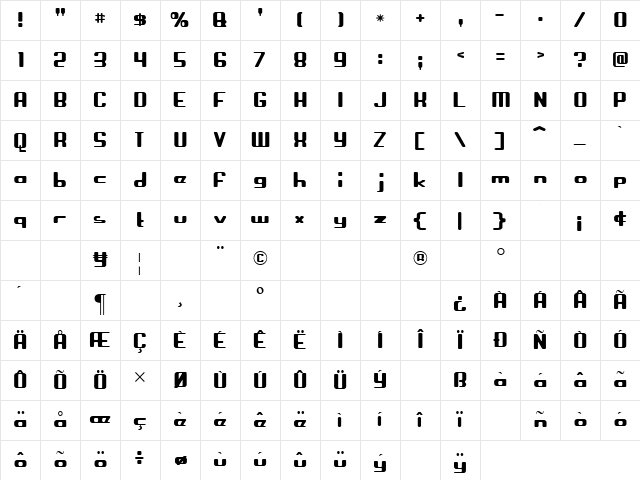
Crapola Regular
Foundry: Larabie Fonts
Design Context for Crapola
Crapola is a composed and adaptable typeface that performs quietly and consistently across a wide range of design contexts.
Who designed the Crapola Regular font?
This font was published by Larabie Fonts. Check the technical specs section for copyright and designer details.